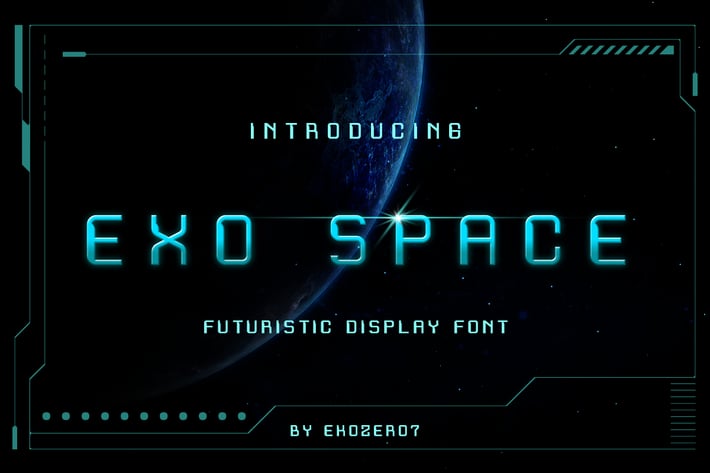
Exo Space Futuristic Display Font
Exo Space Display font.
Exo Space Display font can be used in different purposes: logo and branding, sci-fi poster, product packaging, advertising, invitations, port apparel, game industry, movie and any futuristic typography design projects.